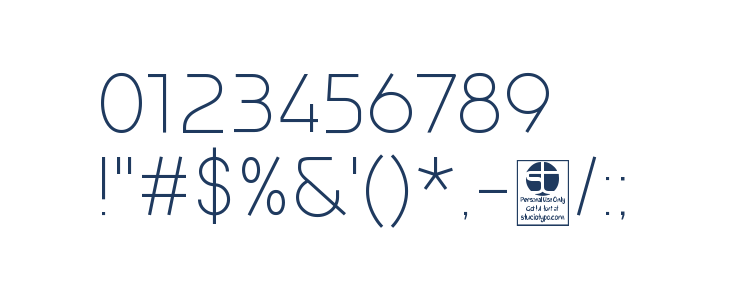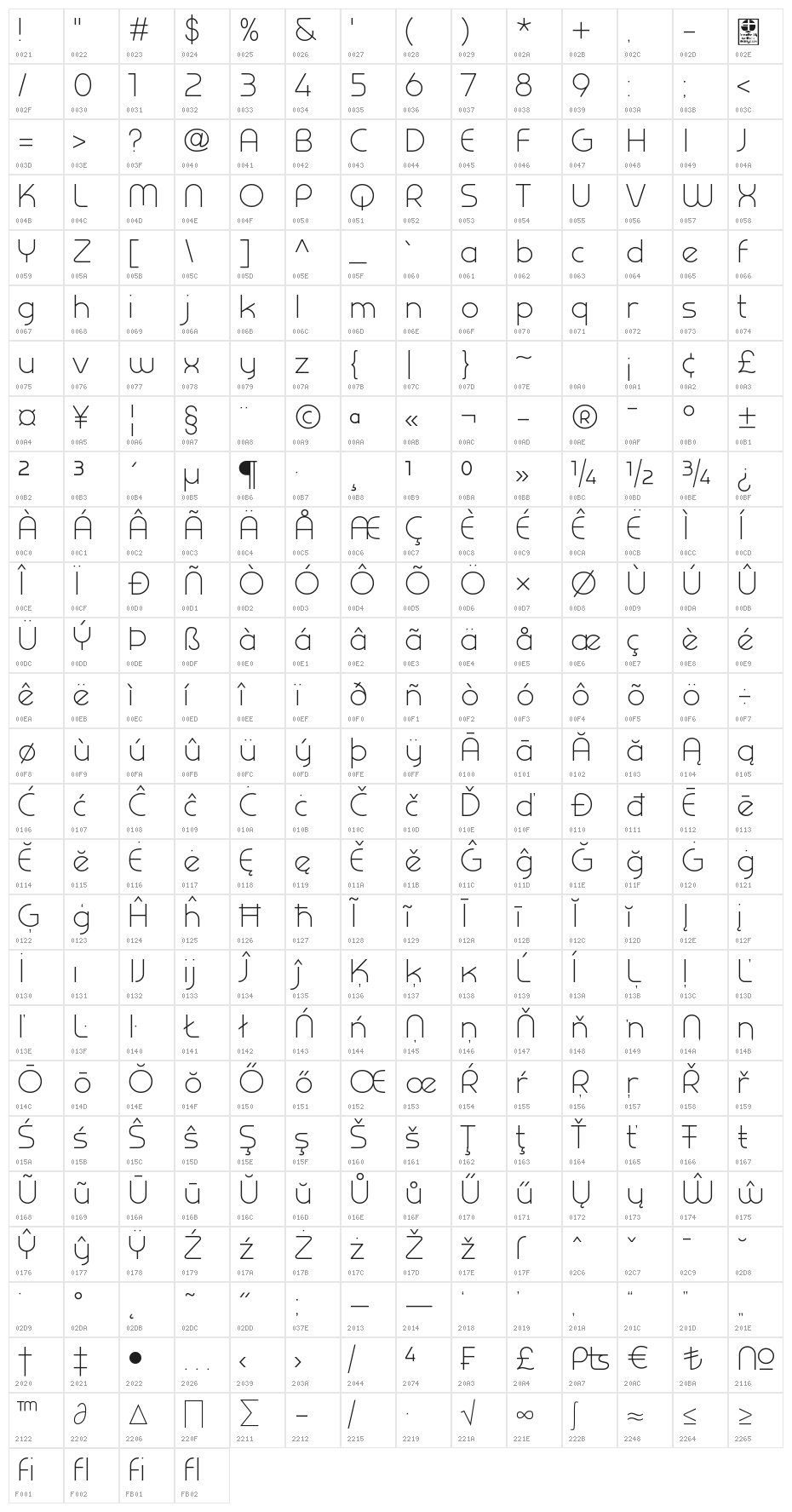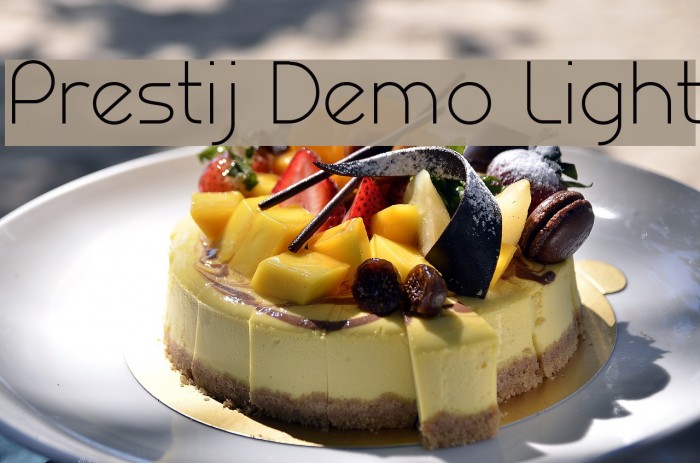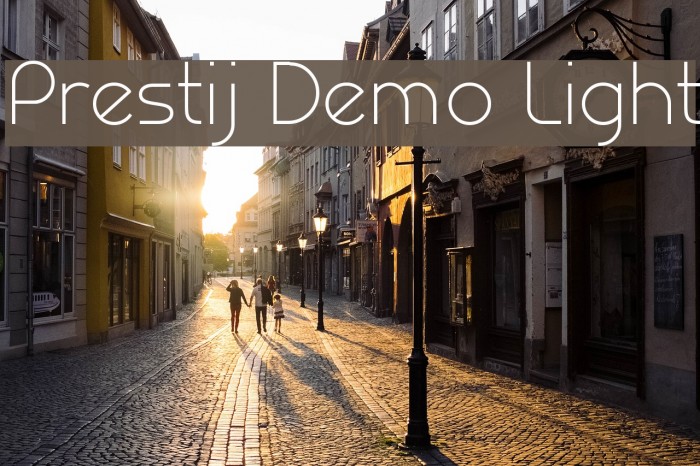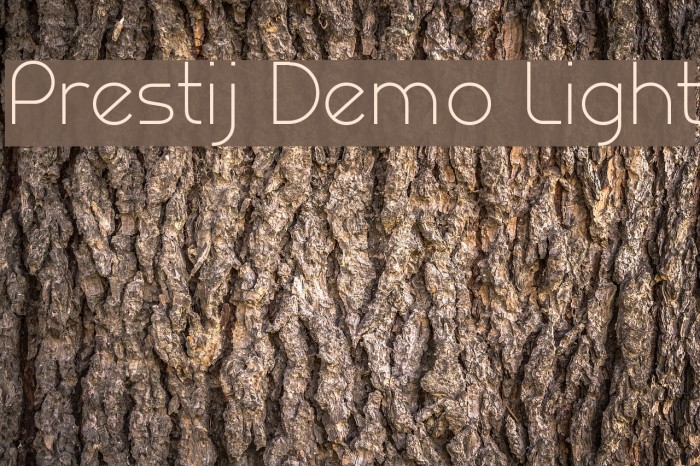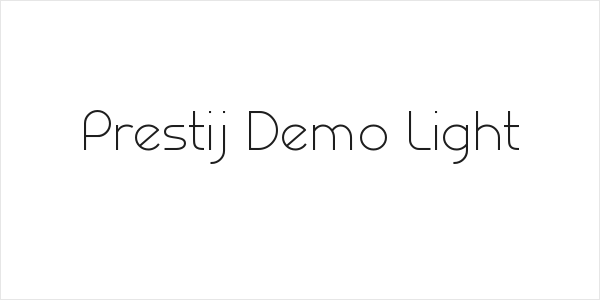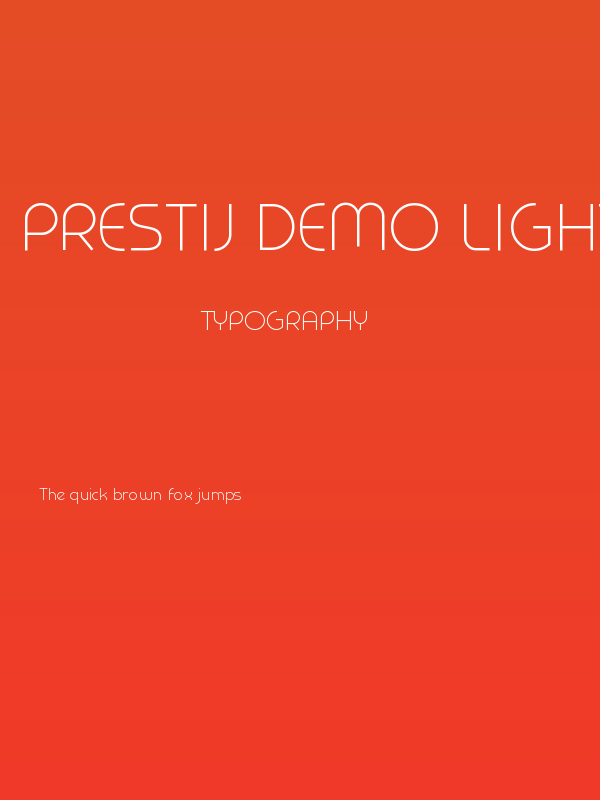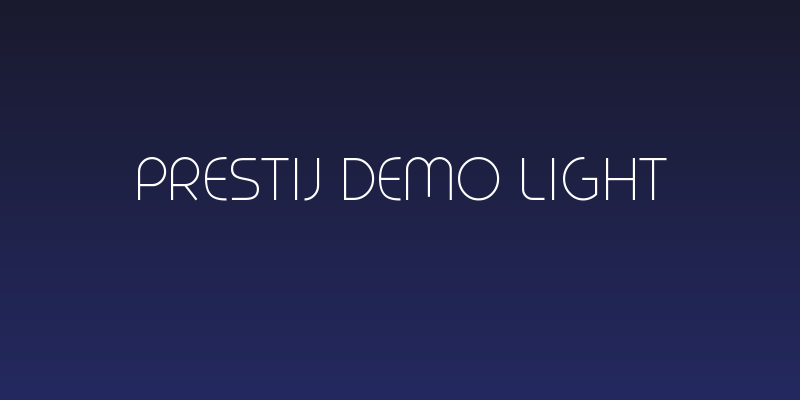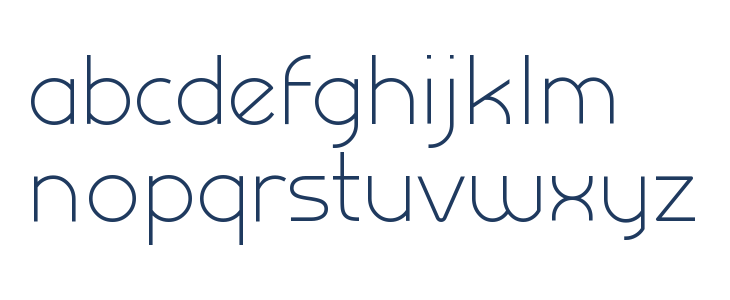
Prestij Demo Light Font
Prestij Demo Light Description
This font features a sleek and modern design with clean lines and a minimalist aesthetic. The characters are evenly spaced, providing a harmonious and balanced appearance. The uppercase and lowercase letters maintain a consistent style, with rounded edges and a geometric structure. The numerals are clear and easy to read, complementing the overall design. Special characters are included, maintaining the same modern and streamlined look. This font is versatile and can be used in various design projects that require a contemporary touch.